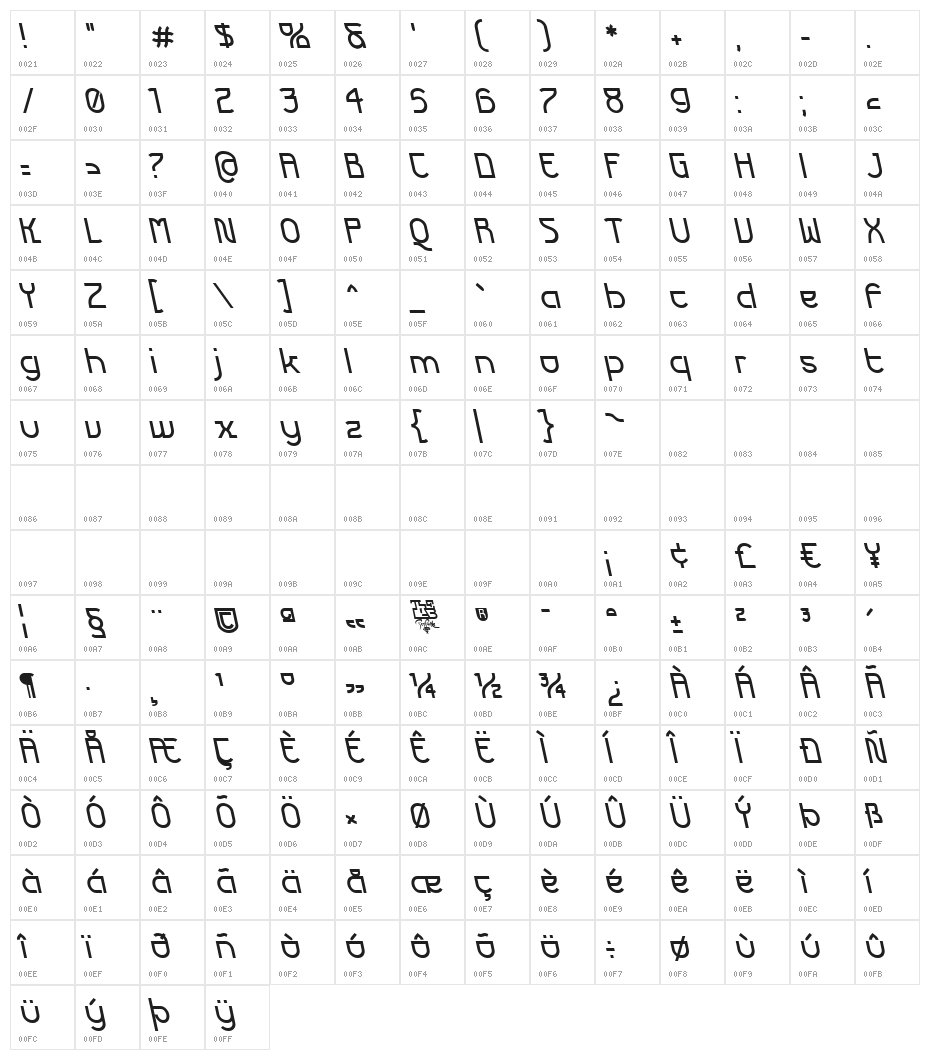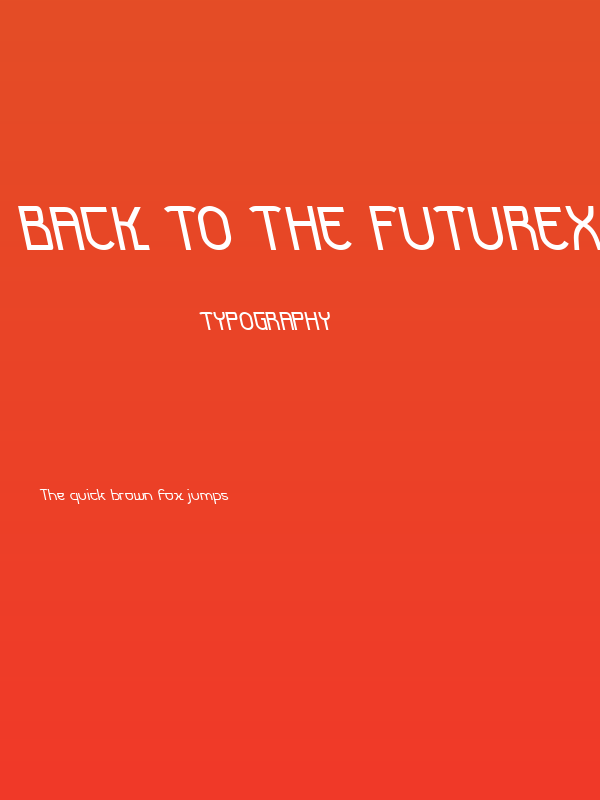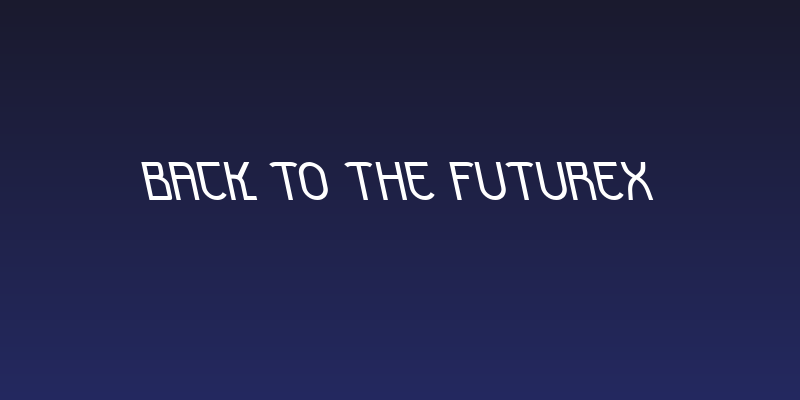
Back to the Futurex Font
Back to the Futurex Description
This font features a futuristic and geometric design, characterized by its angular and slightly condensed letterforms. The uppercase letters are bold and assertive, with sharp angles and a distinct, modern aesthetic. The lowercase letters maintain a similar style, offering a cohesive look across different text cases. The numerals are uniquely styled to match the overall theme, with a consistent stroke width that enhances readability. Special characters are designed to complement the alphanumeric characters, maintaining the font's distinctive style. This font is ideal for projects that require a modern and dynamic appearance.
| Proposed Projects | Ideal for sci-fi themed designs, technology branding, and modern advertising. |